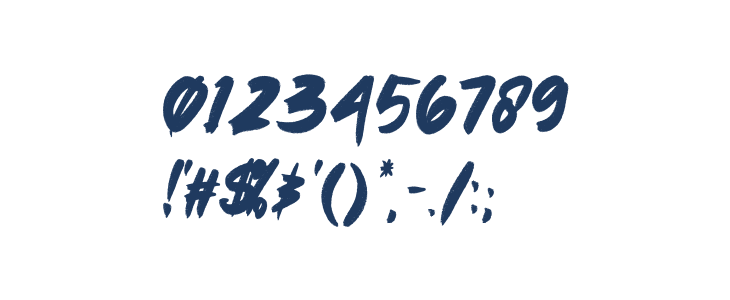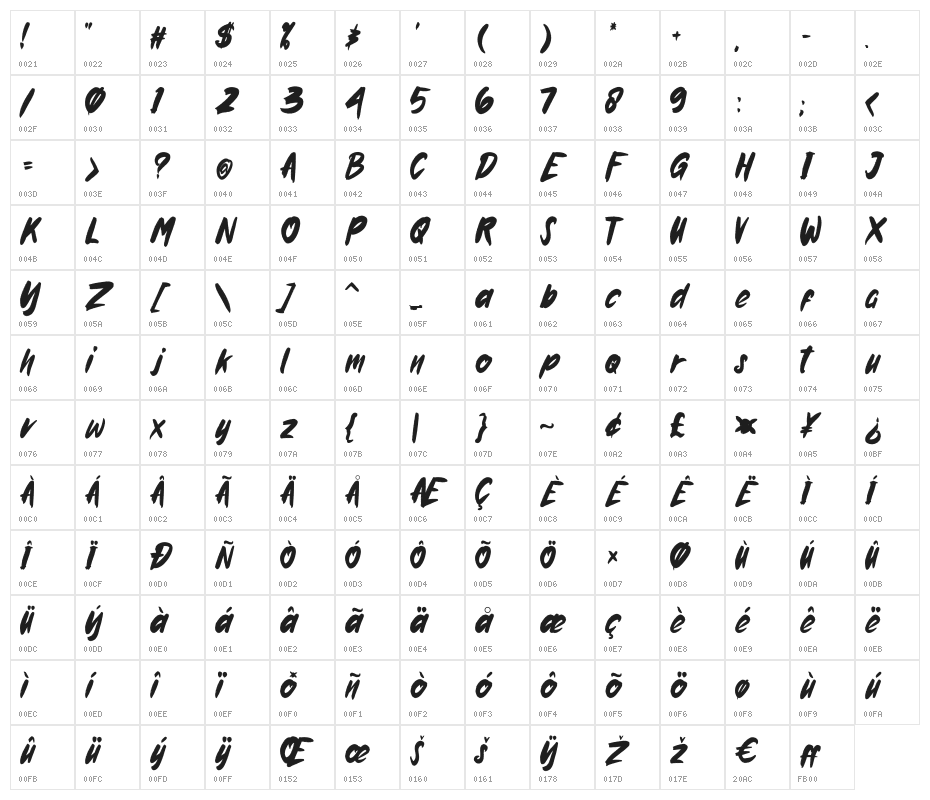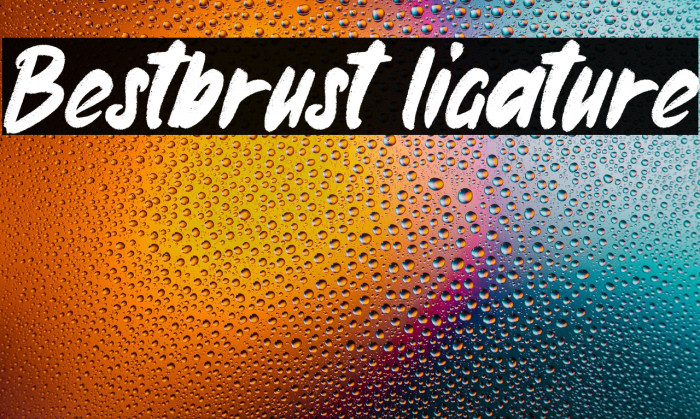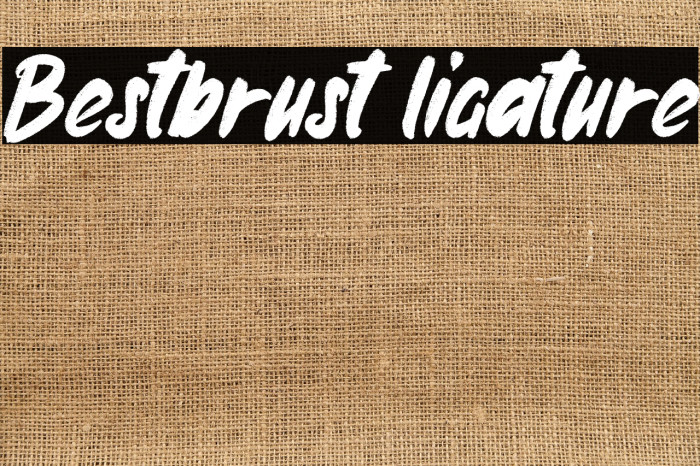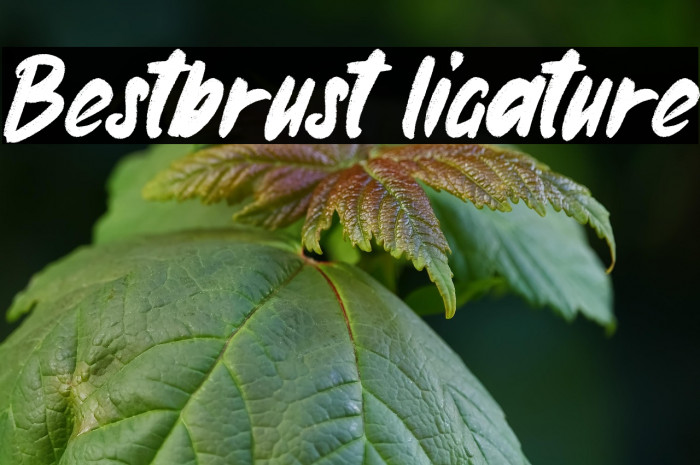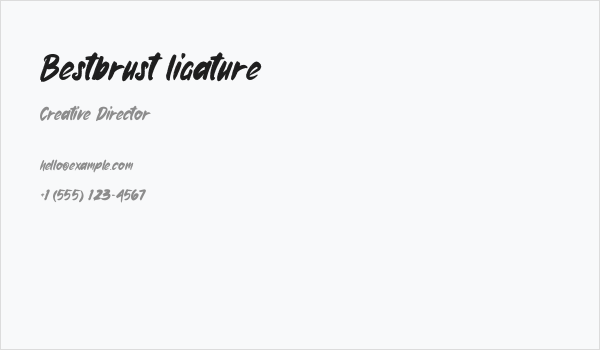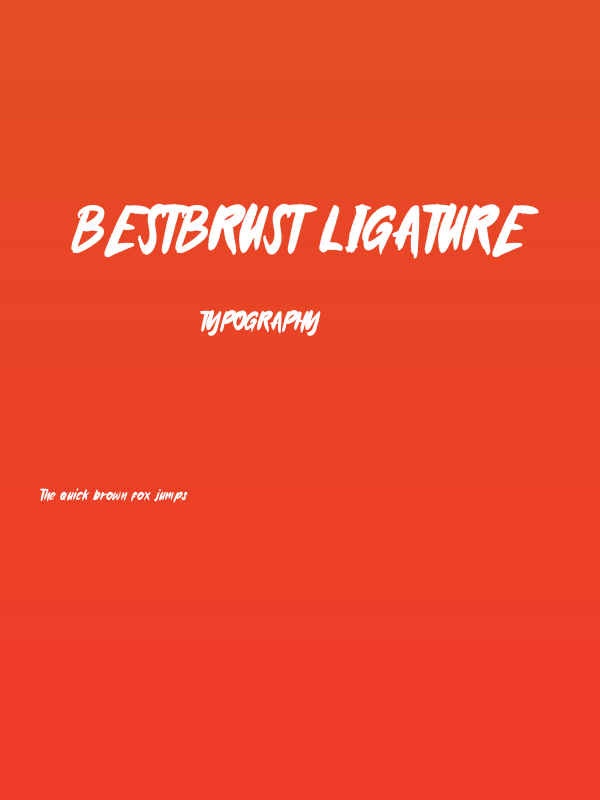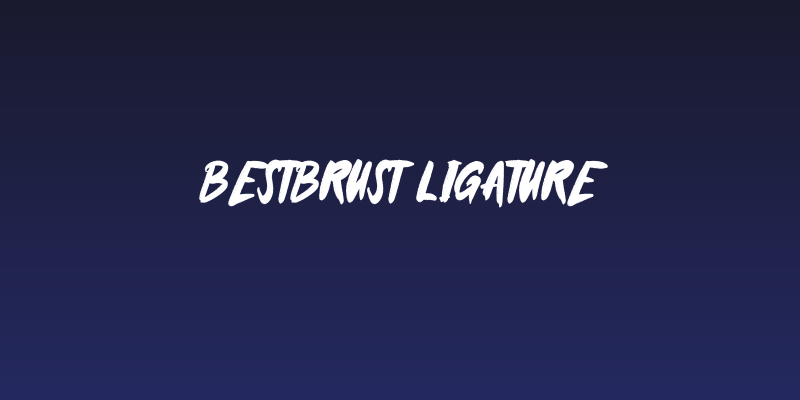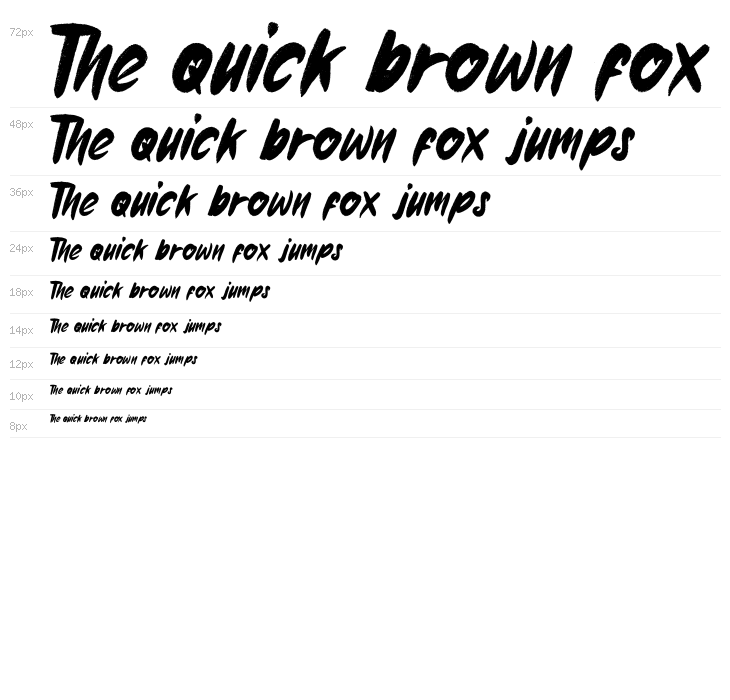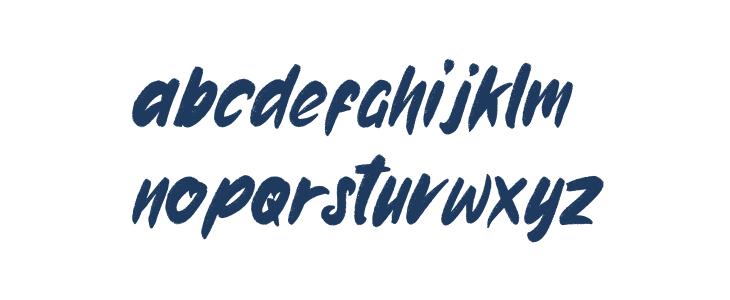
Bestbrust ligature Font
Bestbrust ligature Description
This font features a bold, energetic script style with a hand-painted appearance. The letters are dynamic and fluid, with a sense of motion and expressiveness. The strokes are thick and vary in width, giving the font a lively and artistic feel. The uppercase and lowercase letters are well-balanced, maintaining a consistent flow throughout. The numbers and special characters complement the overall style, making it versatile for various design needs. Its bold presence makes it ideal for attention-grabbing headlines or creative projects.